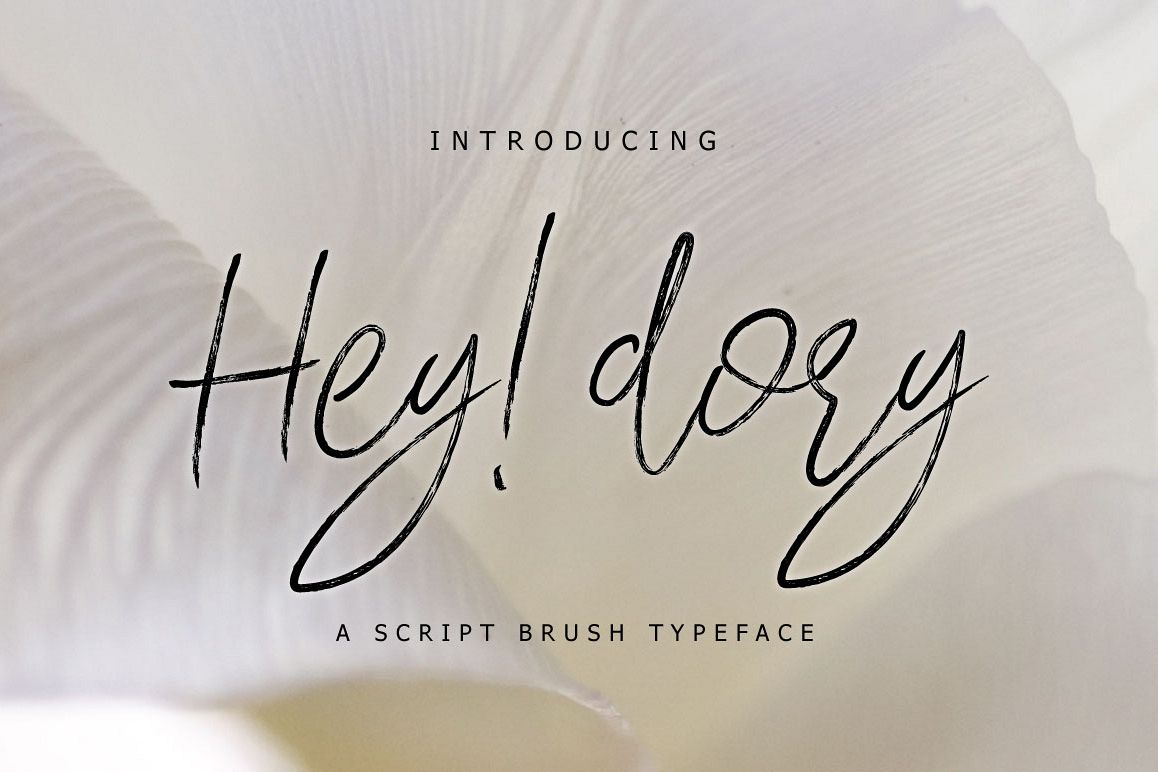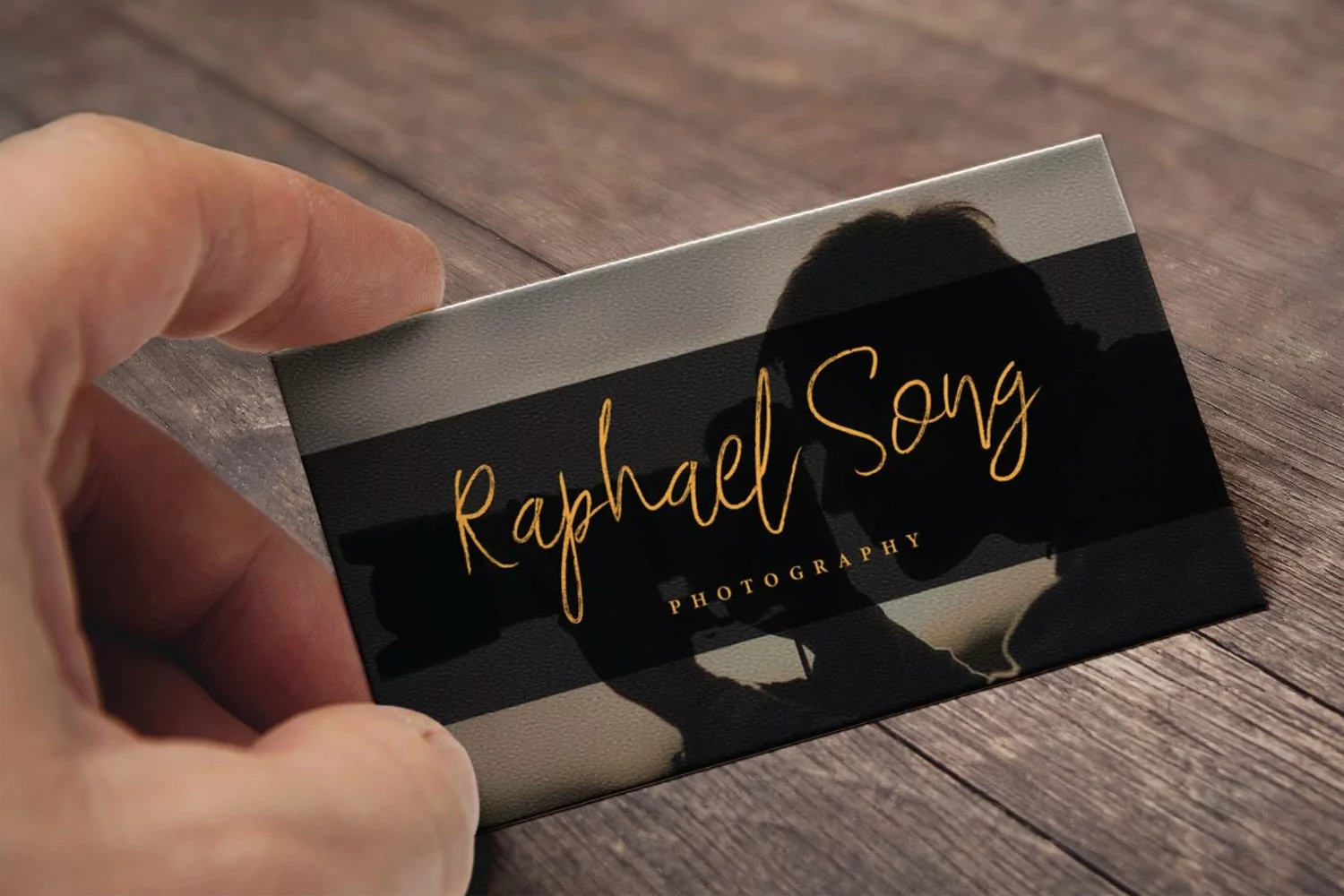
Hey Dory Typeface
Introducing a brush strokes Hey! Dory Script Typeface! An elegant, calligraphy hand-brushed font, designed with branding in mind.
Handwritten upper and lowercase characters, numerals, punctuation and
extra ligatures for more complex letter-combinations like ll, aj, ng
and more..
Hey dory looks gorgeous on logos, websites, invitations, greeting cards, magazines, business cards, packaging and many more!